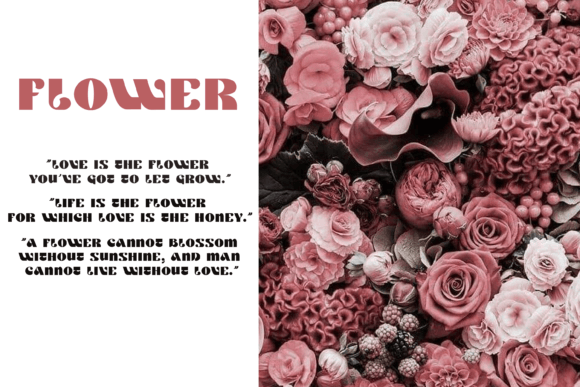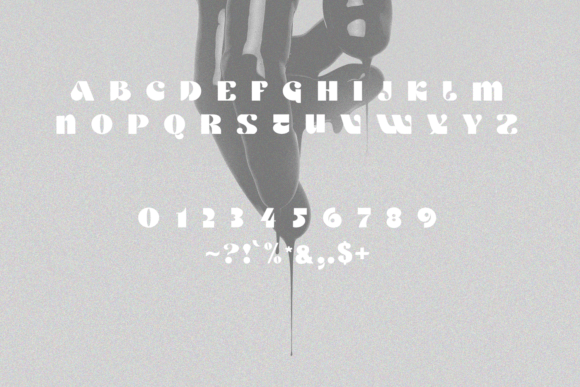
Clefont: Elevate Your Designs with a Cool and Stylish Display Font
In the world of typography, fonts play a crucial role in conveying messages, setting tone, and creating visual identities. For designers and crafters, having the right font can make all the difference in transforming a good design into a great one. This is where Clefont comes in – a cool and stylish display font that can elevate any creation. In this article, we’ll dive into the features, benefits, and uses of Clefont, and explore how it can become an incredible asset to your font library.
What is Clefont?
Clefont is a modern, sans-serif display font designed to make a statement. Its sleek lines, elegant curves, and sophisticated style make it perfect for a wide range of design projects, from logos and branding to posters, headlines, and social media graphics. Whether you’re working on a personal project or a client’s, Clefont is sure to impress with its versatility and visual appeal.
Key Features of Clefont
- Unique and Stylish Design: Clefont boasts a distinctive design that sets it apart from other fonts. Its clean lines, subtle curves, and geometric shapes create a visually appealing aesthetic that’s both modern and timeless.
- High Versatility: Clefont is suitable for a wide range of design projects, including logos, branding, posters, flyers, social media graphics, and more. Its adaptability makes it an excellent addition to any font library.
- Easy to Read: Despite its stylish design, Clefont remains highly legible, even at smaller sizes. This makes it perfect for use in body text, headlines, and titles.
- Multilingual Support: Clefont supports multiple languages, making it an excellent choice for designers working on international projects or with clients from diverse linguistic backgrounds.
Benefits of Using Clefont
So, why should you consider adding Clefont to your font library? Here are just a few benefits:
- Instant Visual Impact: Clefont’s stylish design and sleek lines create an instant visual impact, drawing attention to your message and making your design stand out.
- Professional Look and Feel: Clefont’s sophisticated aesthetic lends a professional touch to any design, making it perfect for businesses, brands, and individuals looking to establish a strong visual identity.
- Time-Saving: With Clefont, you can create stunning designs quickly and efficiently. Its versatility and legibility save you time and effort, allowing you to focus on other aspects of your project.
How to Use Clefont in Your Designs
Now that we’ve explored the features and benefits of Clefont, let’s discuss how to incorporate it into your designs:
- Logos and Branding: Use Clefont to create a unique and memorable logo that sets your brand apart.
- Posters and Flyers: Add a touch of sophistication to your posters and flyers with Clefont’s elegant design.
- Social Media Graphics: Elevate your social media presence with eye-catching graphics featuring Clefont.
- Web Design: Use Clefont to create visually appealing headings, titles, and other typography elements for your website.
In conclusion, Clefont is a cool and stylish display font that can elevate any design project. Its unique design, versatility, and legibility make it an excellent addition to any font library. Whether you’re a designer, crafter, or simply someone looking to create stunning visuals, Clefont is sure to become an invaluable asset. With its wide range of applications and benefits, Clefont is a font that’s sure to impress.